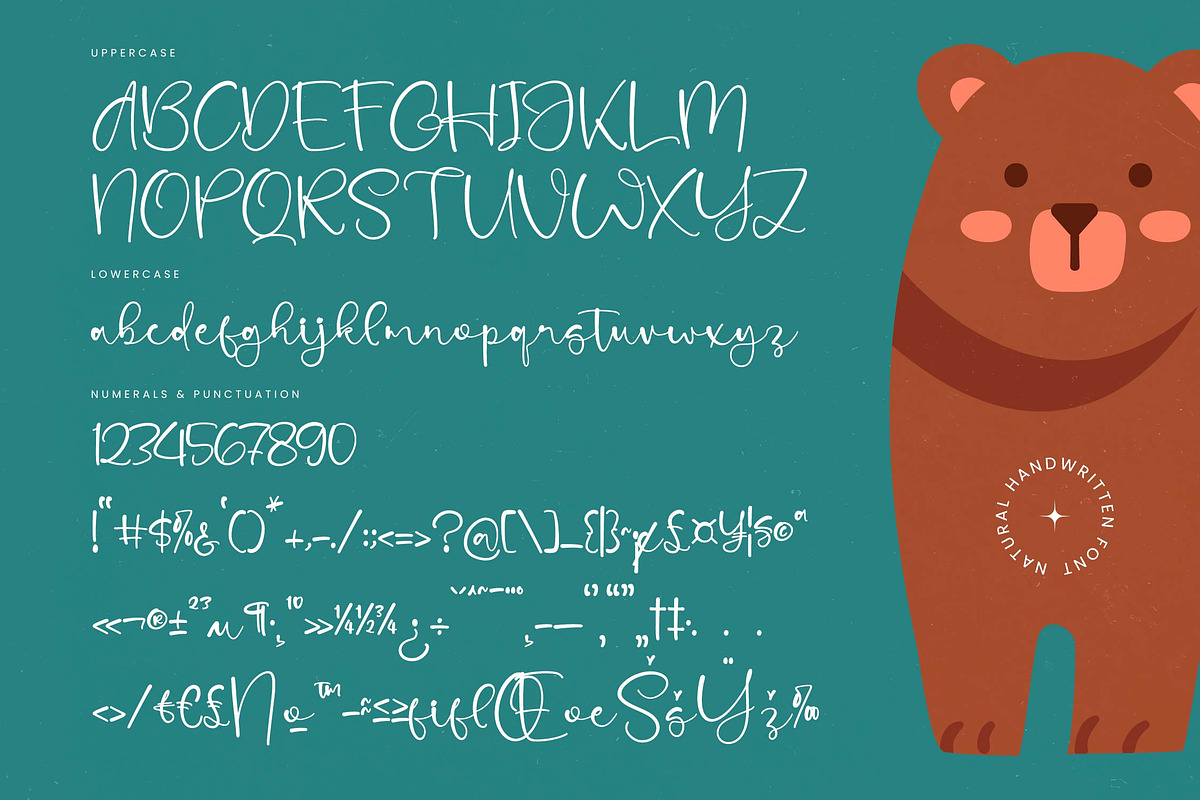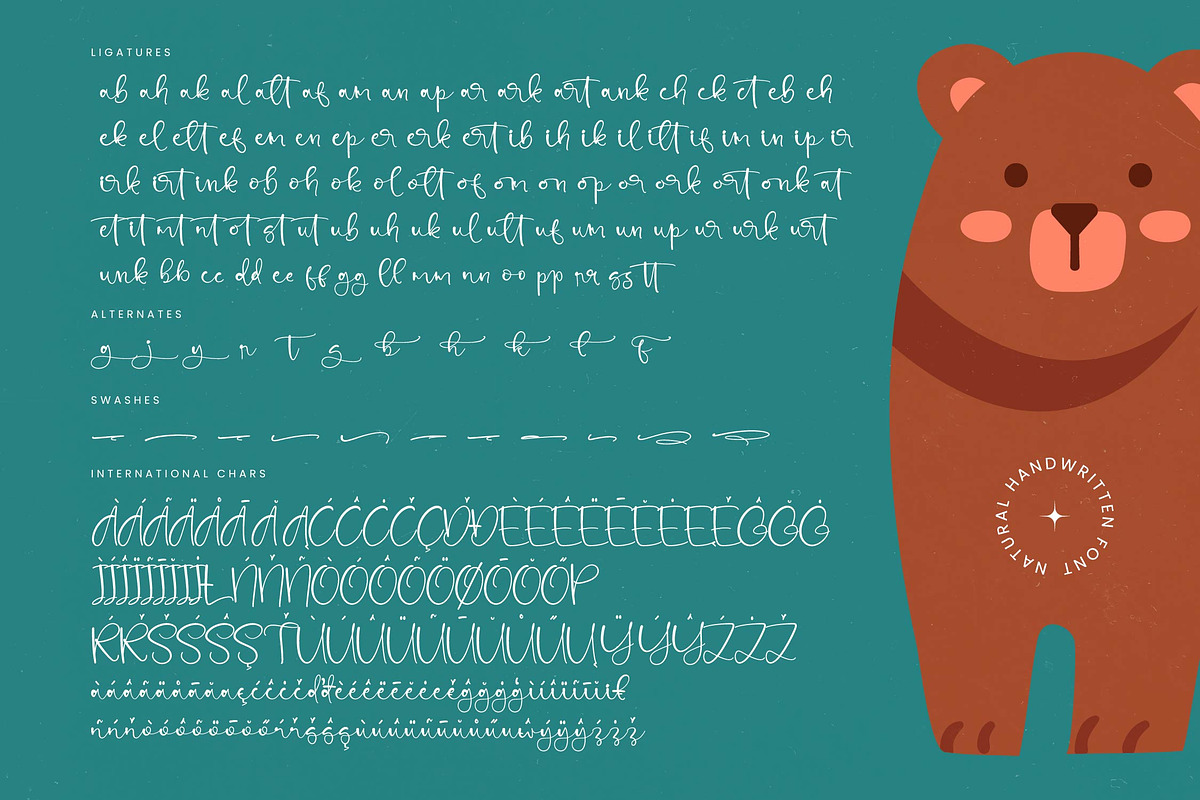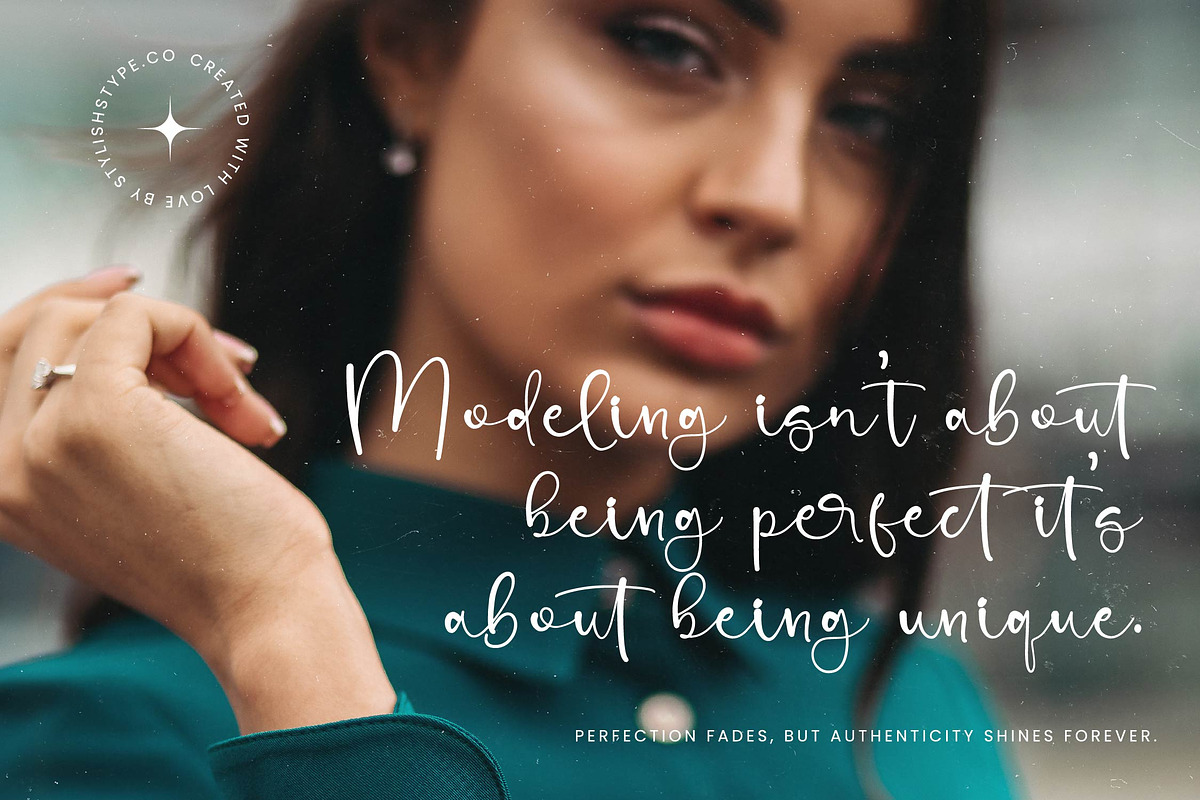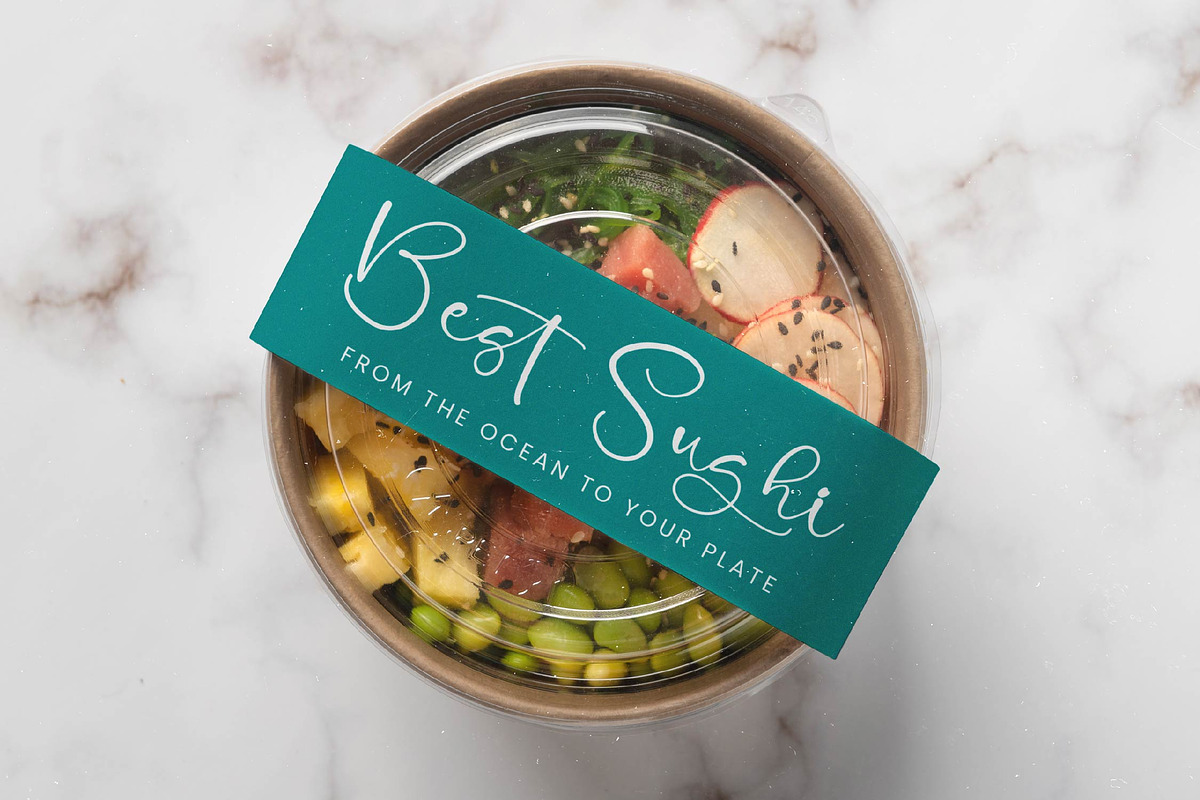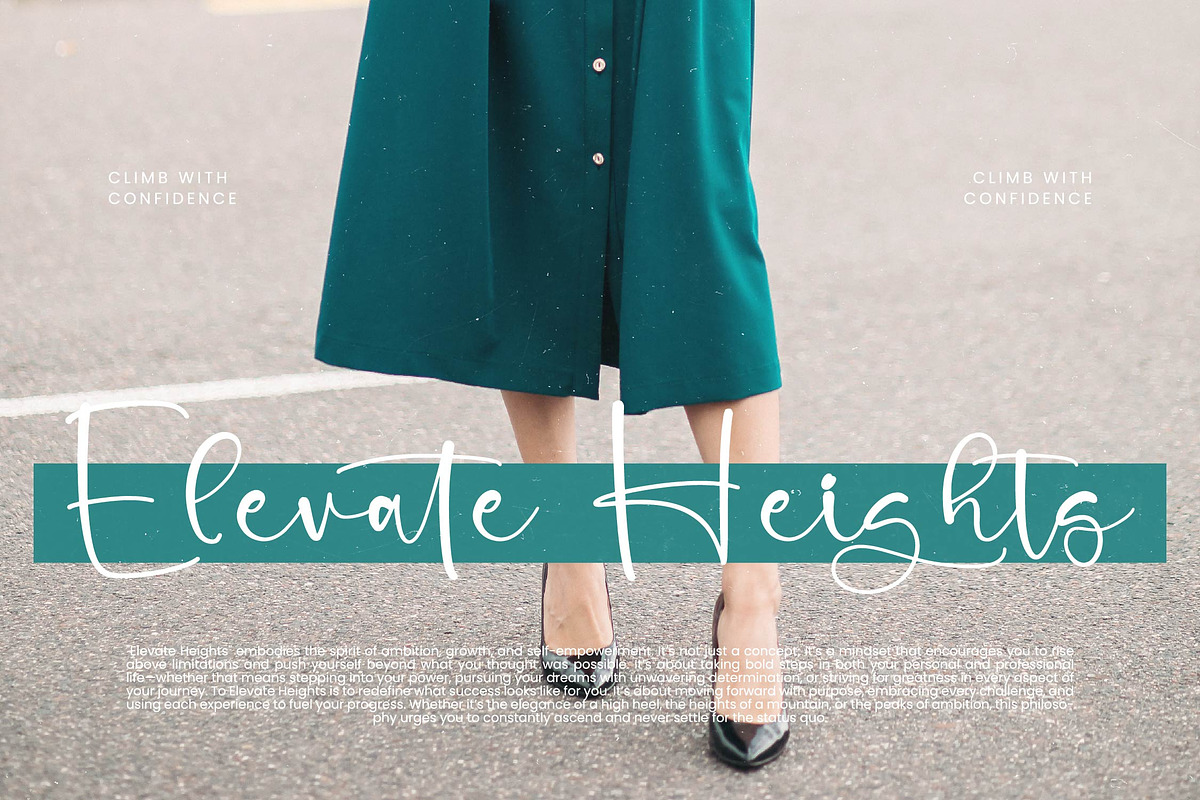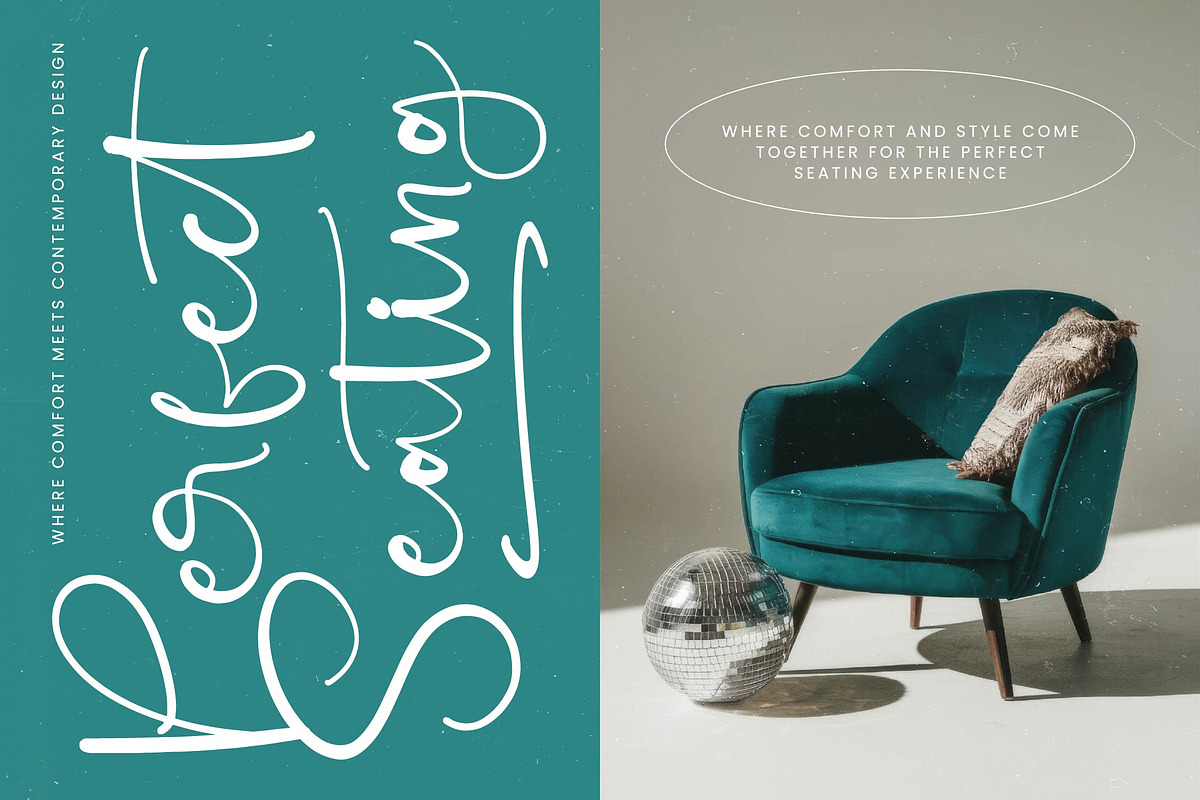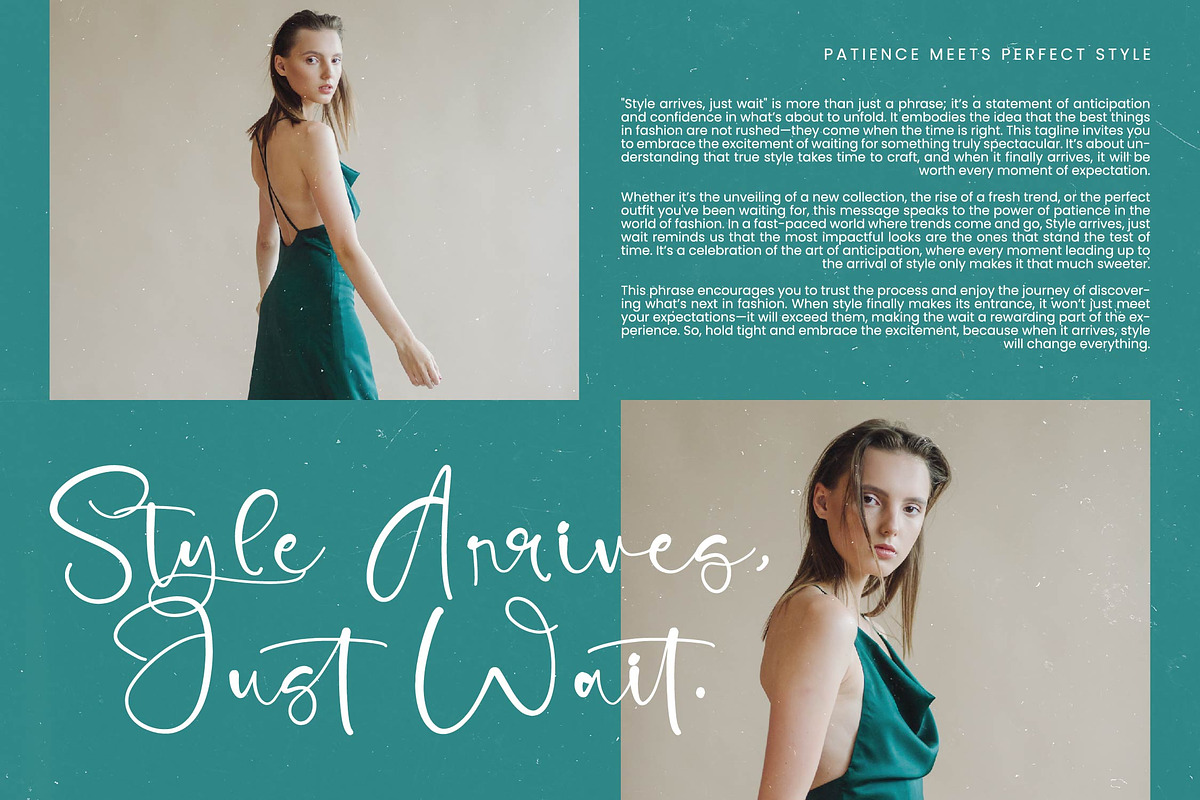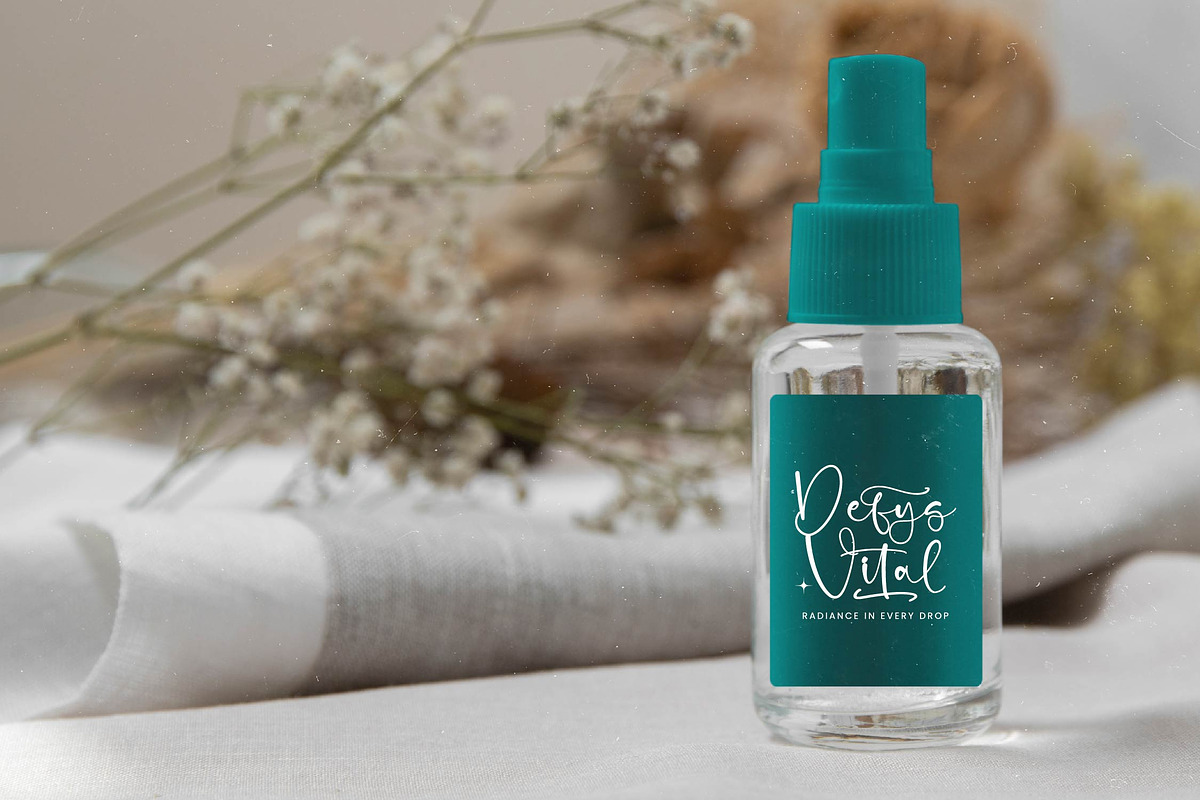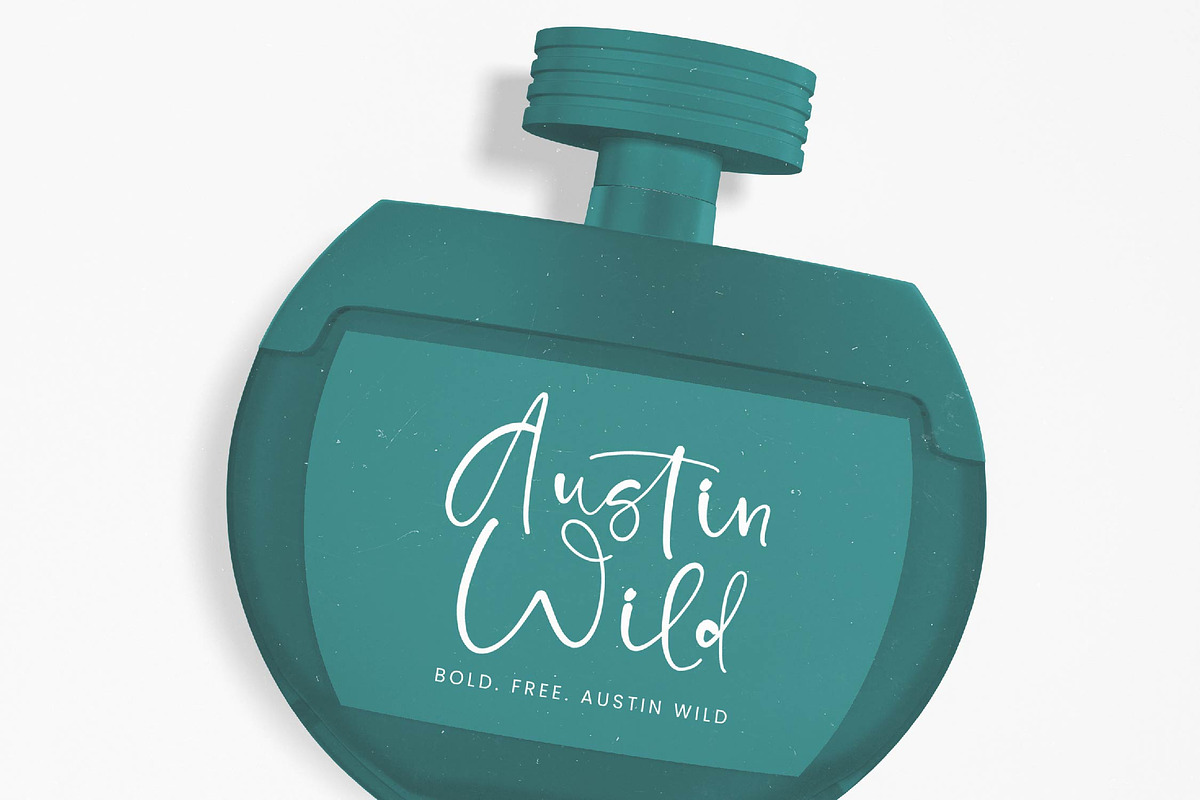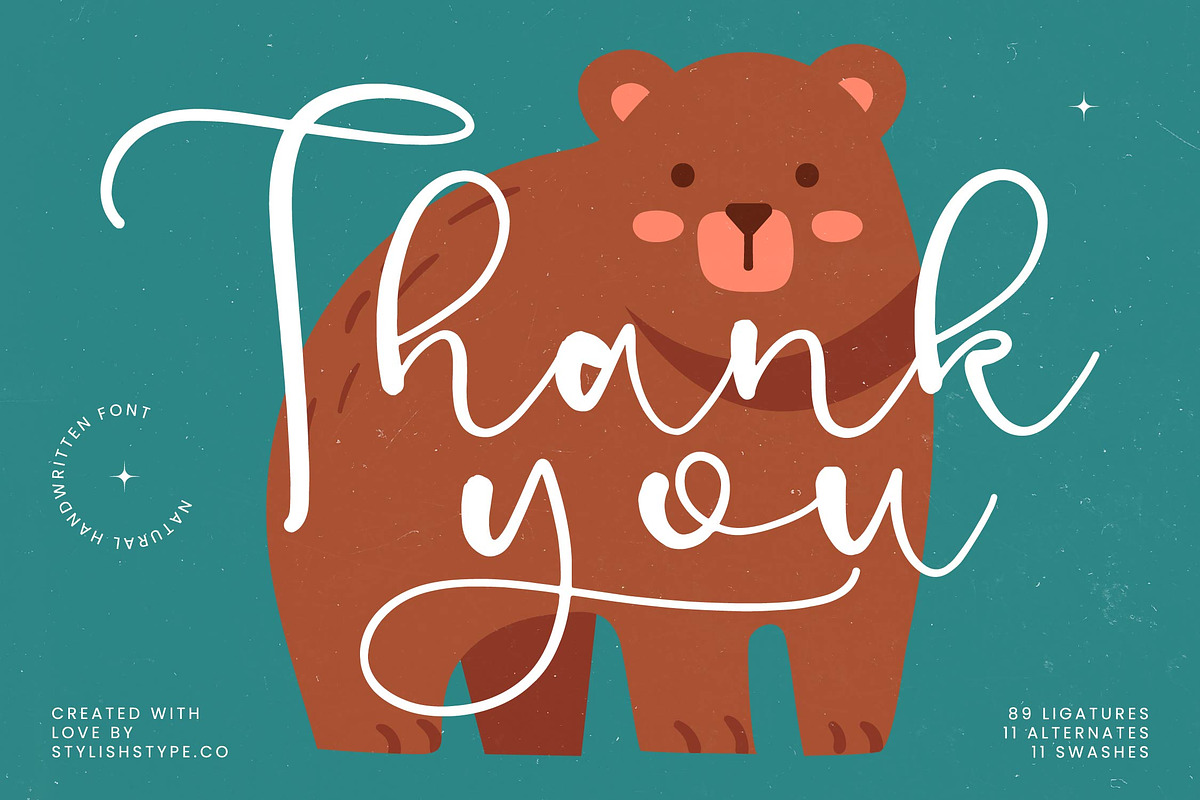
Bearcute Holistic Handwritten Font
Bearcute Holistic - Natural Handwritten Font , from Stylishtype.Co , Suitable for any projects such as: logos, branding projects, homeware designs, product packaging, mugs, quotes, posters, shopping bags, t-shirts, book covers, name card, invitation cards, greeting cards, label, photography, watermark, special events, and all your other luxury and beautiful projects that need a Luxury Script taste.
- 89 Ligature Alternates 11 & 11 Swashes